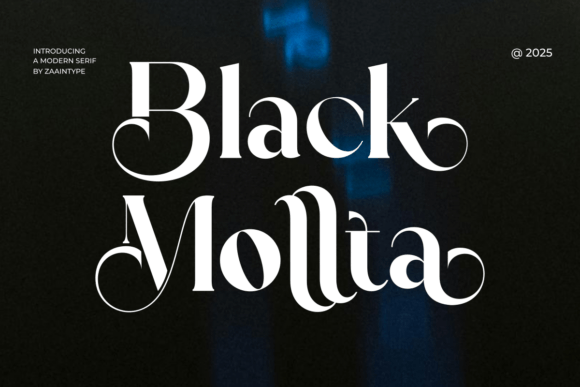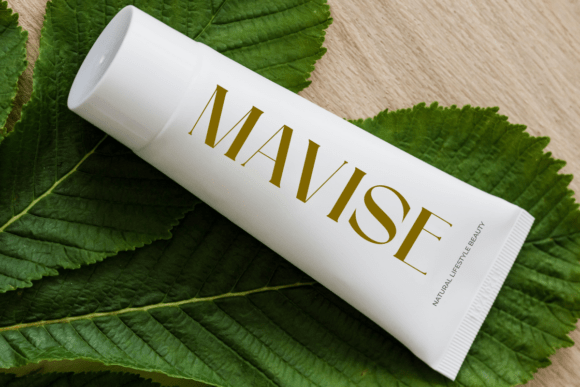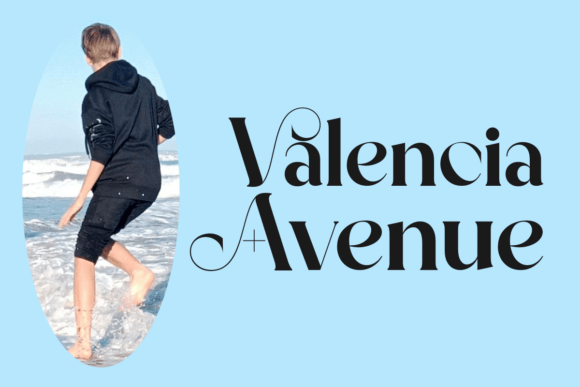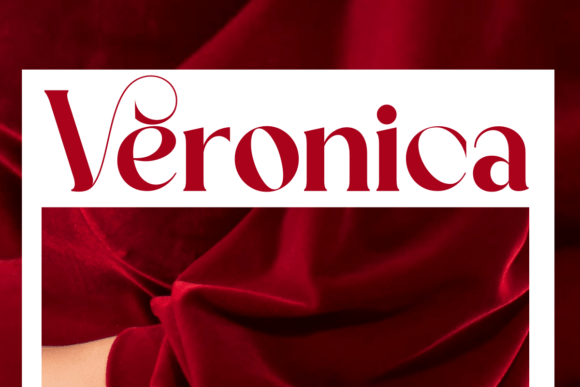
Black Mollta Font: Elegant Serif Typography for Luxury Branding
About the Black Mollta Font
Crafted with precision, the Black Mollta Font is ready to bring your ideas to life. Black Mollta is a high-contrast serif font that blends classic elegance with a bold modern touch. With its striking thick-thin contrast, this font is perfect for premium branding, editorial, fashion, and luxury design.
Available in two styles:
Regular – A perfect balance of elegance and readability, ideal for main text and headlines.
Oblique – A slanted version that adds a dynamic and stylish feel, perfect for more expressive designs
Black Mollta excels in headlines, short-form text, and displays where its strong contrast and elegant serifs command attention. It’s ideal for logos, packaging for premium products, and short impactful statements in advertising. However, its high contrast makes it less suitable for extended body text or UI elements where readability is paramount.
Black Mollta projects a sophisticated and bold personality, lending itself well to brands that aim for a premium image. Its inherent classicism is revitalized by a modern edge, making it a strong choice for luxury goods, fashion, or high-end editorial design.
Black Mollta Font Usage Examples